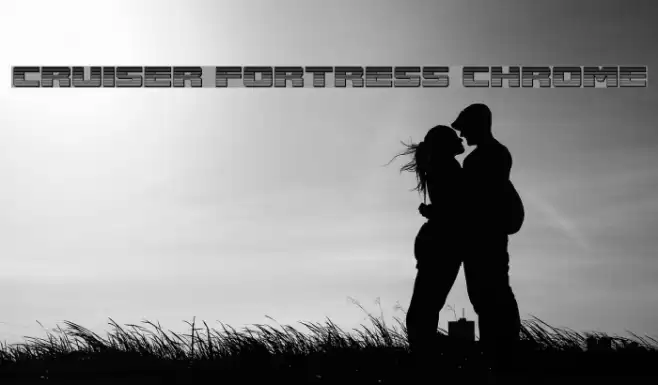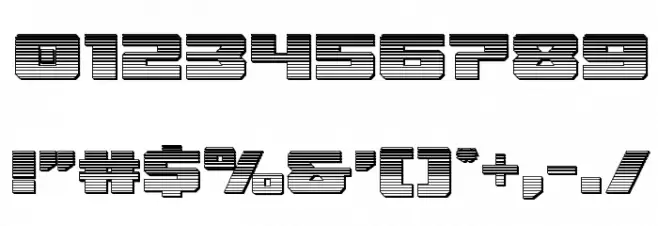
Cruiser Fortress Chrome Font
Cruiser Fortress Chrome Description
This font features a bold, futuristic design with a distinct three-dimensional effect created by parallel horizontal lines. Each character is constructed with a solid, block-like structure, giving it a strong and impactful presence. The geometric shapes are consistent across all characters, maintaining a uniform appearance. The font's style is reminiscent of digital or technological themes, making it suitable for modern and innovative designs. The uppercase letters are particularly striking, with their robust and angular forms. The numerals and special characters follow the same design principles, ensuring a cohesive look throughout.
A bold, futuristic font with a three-dimensional effect and geometric design from Sci-fi fonts.
- Proposed Projects: Ideal for technology-themed projects, video game titles, sci-fi movie posters, and modern branding.